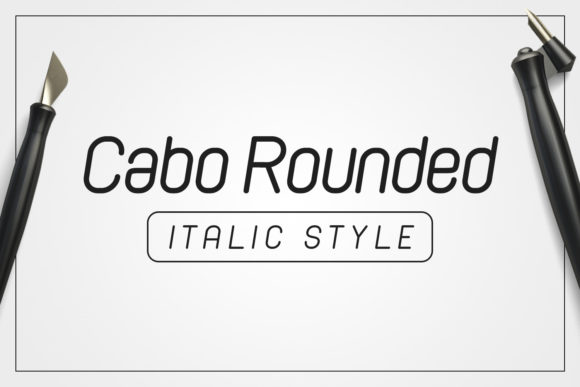
Unleash the beauty of typography with Cabo Rounded Italic, a mesmerizing sans serif font that captivates with its graceful curves and elegant simplicity. Step into a world of design possibilities where your words dance with charm and distinction, leaving a lasting impression on every reader.
Crafted by the visionaries at Design A Lot, Cabo Rounded Italic is a versatile masterpiece that effortlessly adapts to any creative endeavor. Its clean lines and airy aesthetic make it the perfect choice for logos, headlines, posters, and social media graphics, adding a touch of sophistication to your visual creations.
Immerse yourself in the world of Cabo Rounded Italic, where your ideas take flight and your designs flourish. Let your imagination soar as you explore endless possibilities, transforming ordinary words into captivating expressions of art.